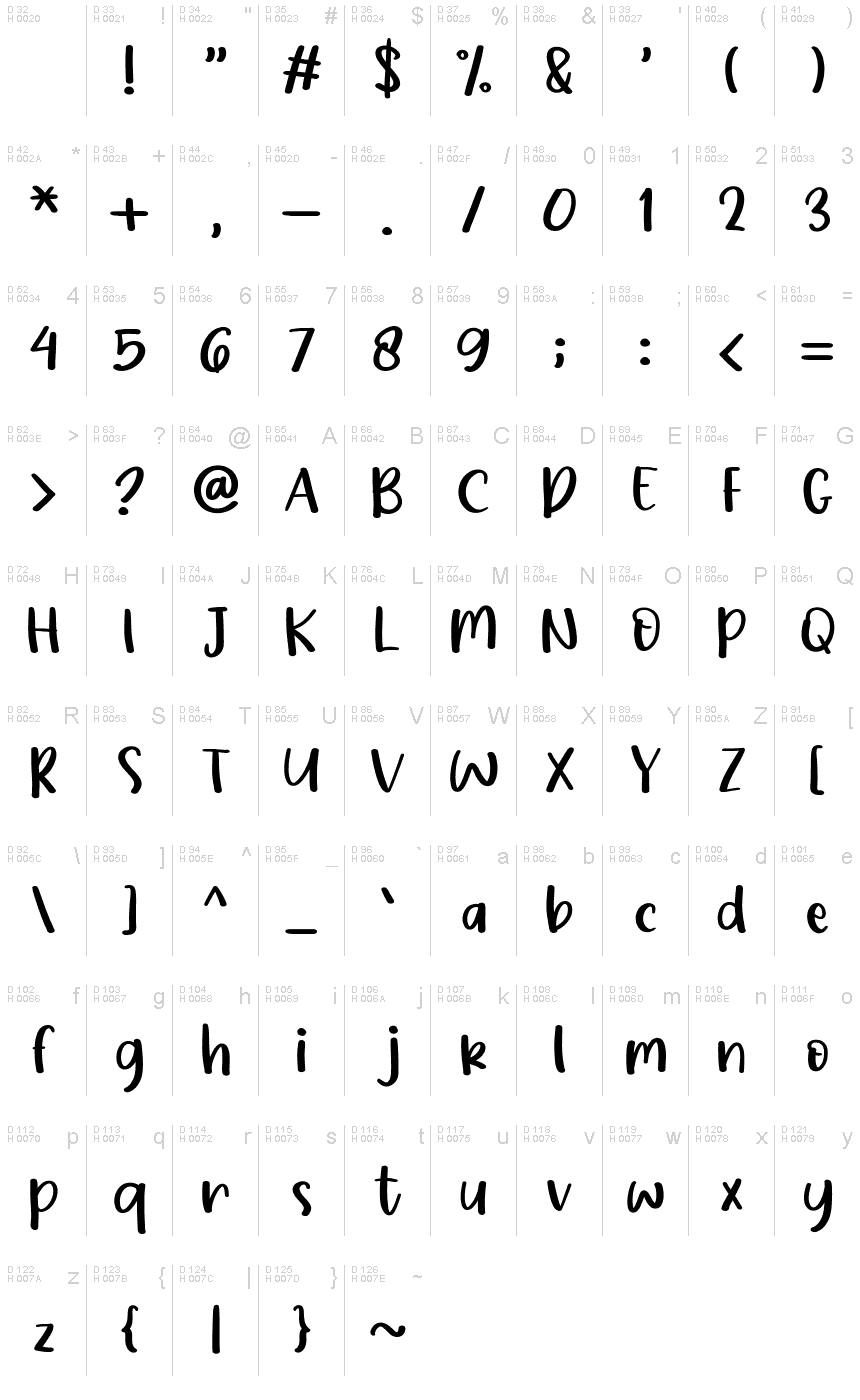
Wonderkid
Wonderkid, the charming semi-expanded handwritten font designed by Erlina Graphic, is perfect for adding a warm and playful touch to your projects. Its quirky and youthful style makes it an excellent choice for children's books, school materials, and invitations. Additionally, Wonderkid's unique personality can bring life to social media graphics, branding collateral, and packaging designs. With its exceptional legibility and distinct character, this typeface is sure to captivate your audience's attention. Add some wonder to your next project with Wonderkid!